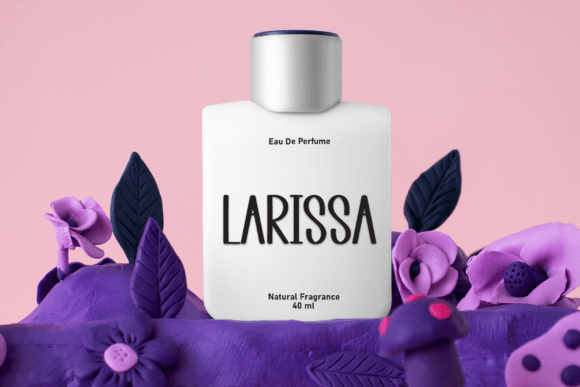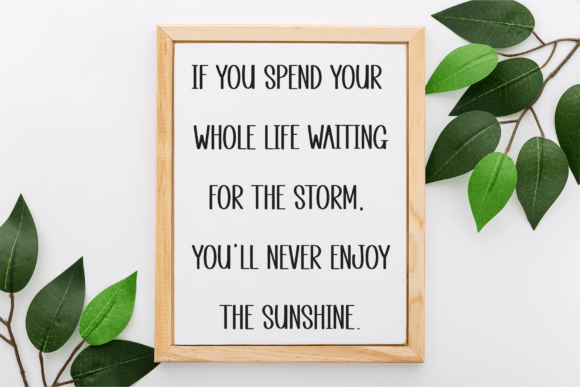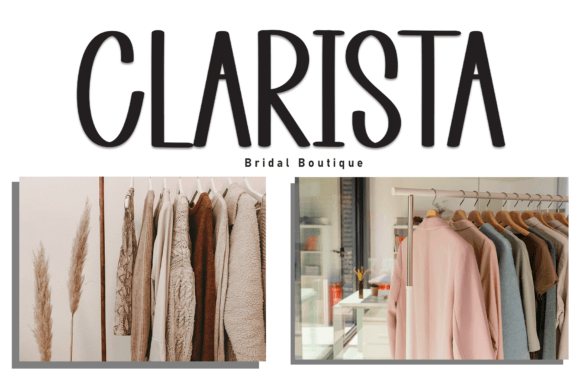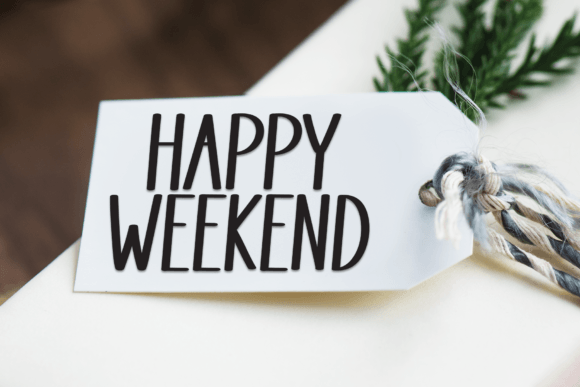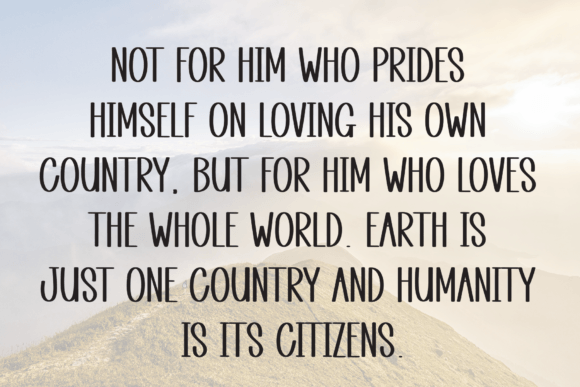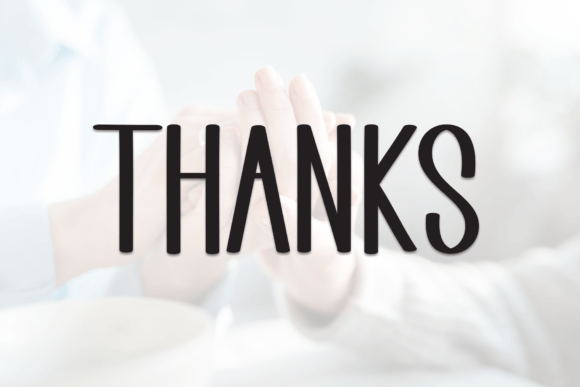
Introduction to Mentally Font
As you sit down to craft a heartfelt wedding invitation or a birthday card for a loved one, you know that the right font can make all the difference. The perfect combination of elegance and whimsy can transport your message to a new level of emotional connection. And that’s exactly what Mentally Font is all about – bringing a dash of playfulness and charm to your designs.
Mentally Font
- High-quality, unique font design perfect for creative projects and designs.
- Large character set with comprehensive language support, including Latin, Cyrillic, and Greek alphabets.
Honest Review: Mentally Font
What works well: ✨ The high-quality design is evident throughout, with a clean and modern aesthetic. The transparent background option is also a great touch, making it easy to customize the font to fit any design. The font itself is highly legible, even at smaller sizes.
Here are some of the key features:
- Highly legible font
Mentally Font
Tips for Getting the Most Out of Mentally Font
For optimal results, use Mentally Font with a transparent background to create a sense of depth and dimensionality. You can also experiment with different font sizes, colors, and combinations to achieve unique and creative effects.
Mentally Font is ideal for use in creative projects such as branding, advertising, and digital media. Its unique style and versatility make it a popular choice among designers and artists.